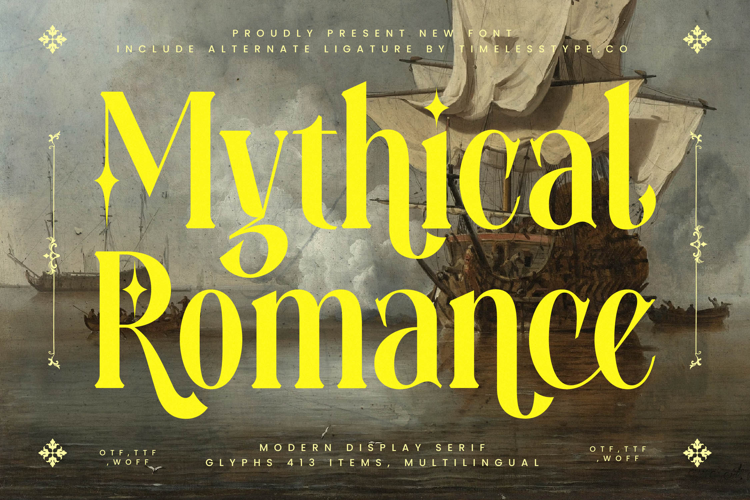
Mythical Romance - Modern Display Serif
The Mythical Romance Typeface is a modern display serif font with a dramatic, elegant style and a strong sense of historical allure. Featuring 413 glyphs, alternates, and ligatures, this font provides powerful typographic flexibility to create designs that feel grand, romantic, and mystical. Its tall, slender letterforms with decorative serif details evoke a classical atmosphere blended with modern refinement, making it the perfect choice for projects that demand visual strength and an epic presence.
This typeface works beautifully in editorial design, particularly for magazine covers, historical headlines, fantasy articles, and art books. The combination of alternates and ligatures allows layouts to appear more dynamic, artistic, and full of expression.
In branding and packaging, Mythical Romance is an excellent fit for luxury products such as perfumes, premium beverages, jewelry, and exclusive fashion. Its refined aesthetic delivers a prestigious image, making brand identities more iconic and memorable.
For entertainment and promotional design, this font excels on epic movie posters, theater promotions, album covers, and festivals with classical or cultural themes. Its theatrical character strengthens visual storytelling with heroic and romantic undertones.
In the realm of digital design, Mythical Romance performs flawlessly across social media content, website branding, digital ads, and motion graphics. With multilingual support, it adapts seamlessly to global projects that require consistent style and impact.
In short, Mythical Romance Typeface is a display serif font designed to bring elegance, historical strength, and a mystical atmosphere. Perfect for editorial, branding, packaging, advertising, entertainment, and digital campaigns, this font elevates typography into a timeless, artistic, and epic visual element.